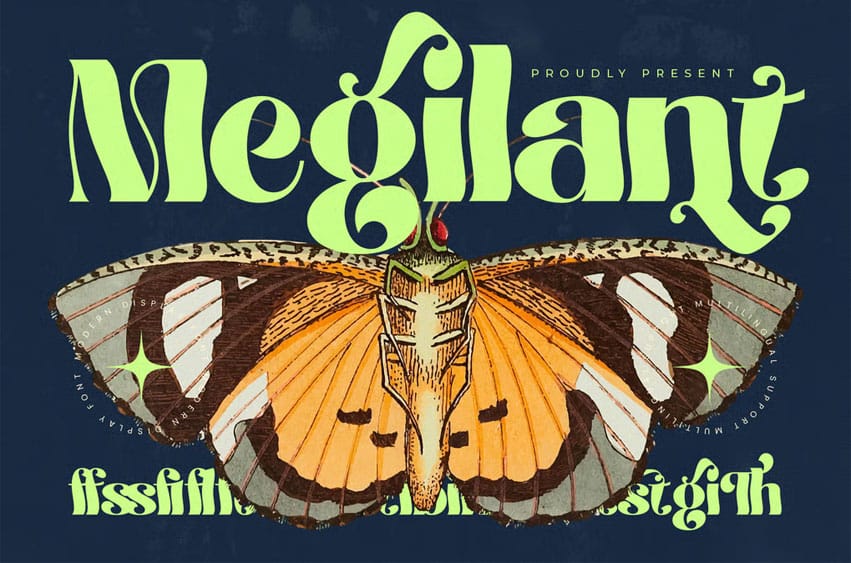
Megilant Font is a bold modern display typeface built for designers who want impact, personality, and high-end editorial flair. Its sculpted curves, exaggerated swashes, and confident letterforms deliver a strong visual presence that instantly elevates branding, posters, packaging, album artwork, and fashion-driven layouts.
The font combines vintage serif aesthetics with contemporary artistic twists, creating a unique balance between elegant ornamentation and modern readability. Perfect for standout headlines, logo marks, and expressive typography compositions. Megilant brings a sense of luxury, drama, and artistic identity to any creative project.